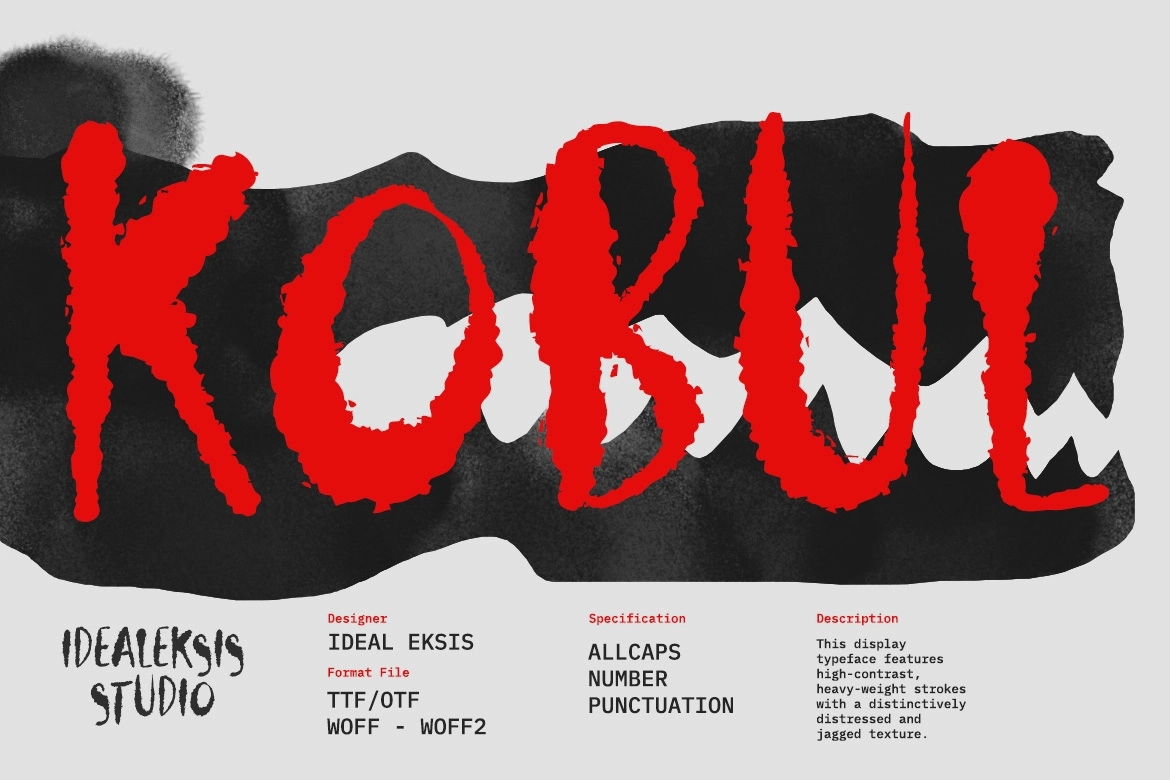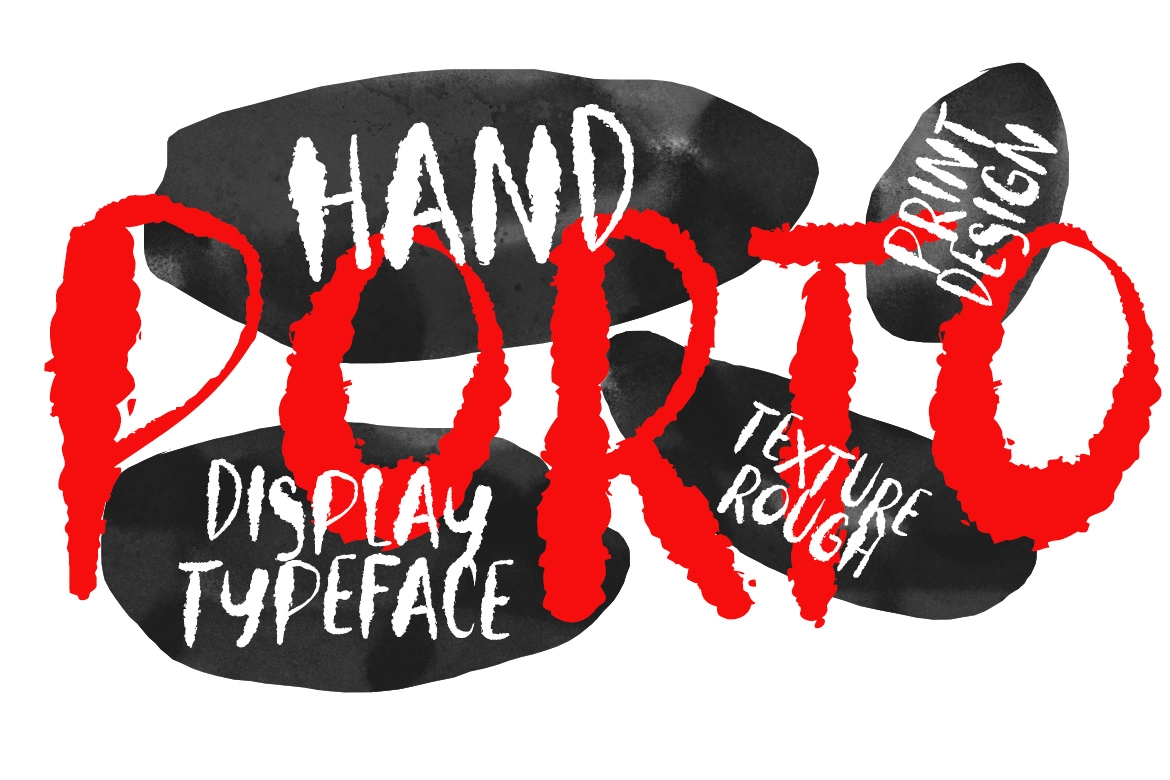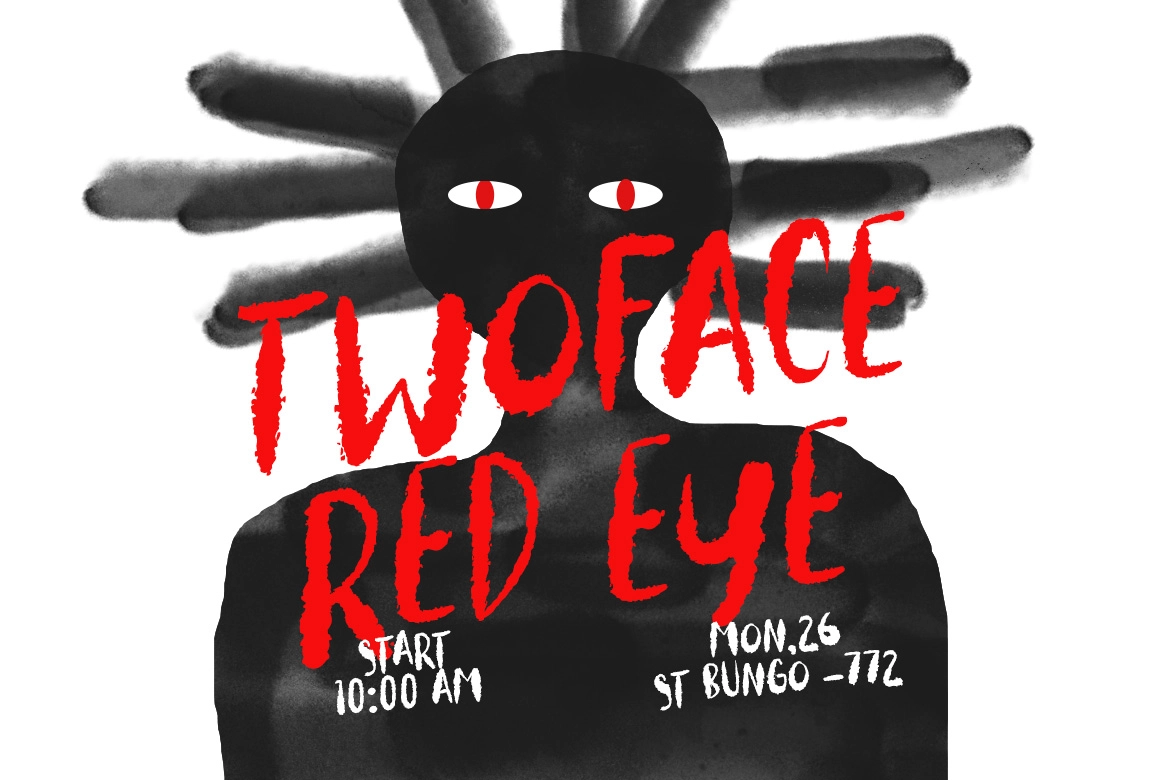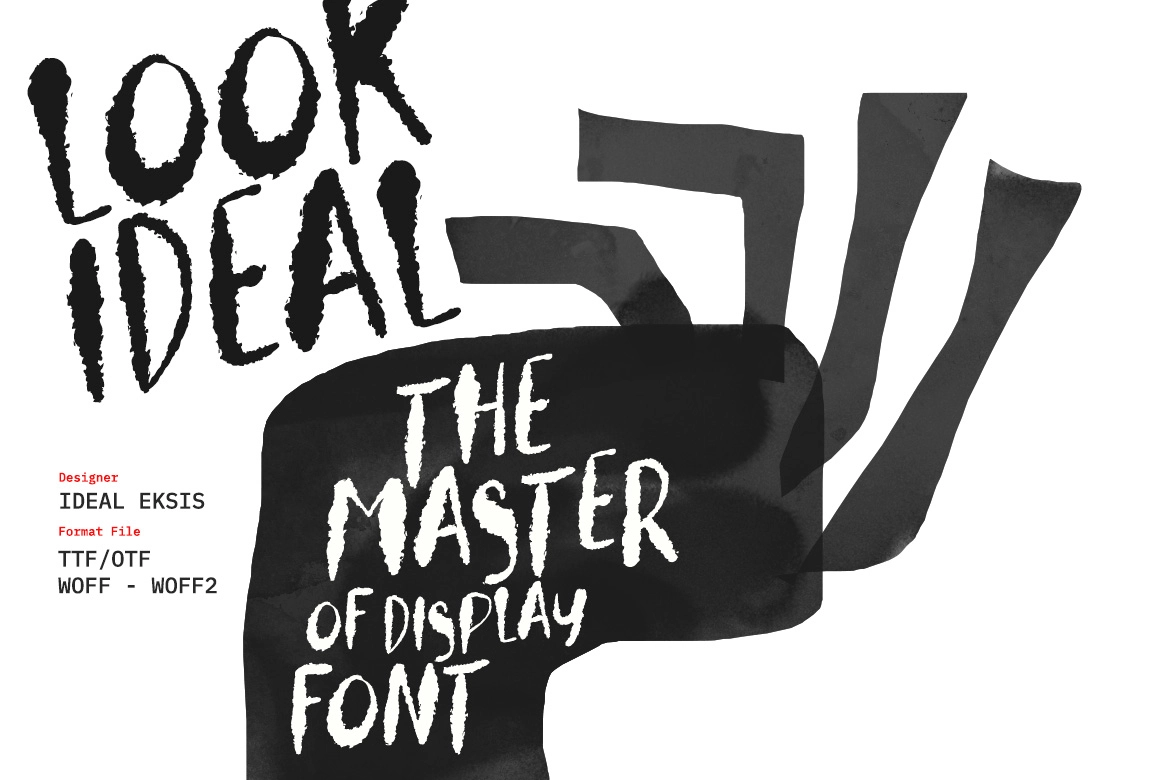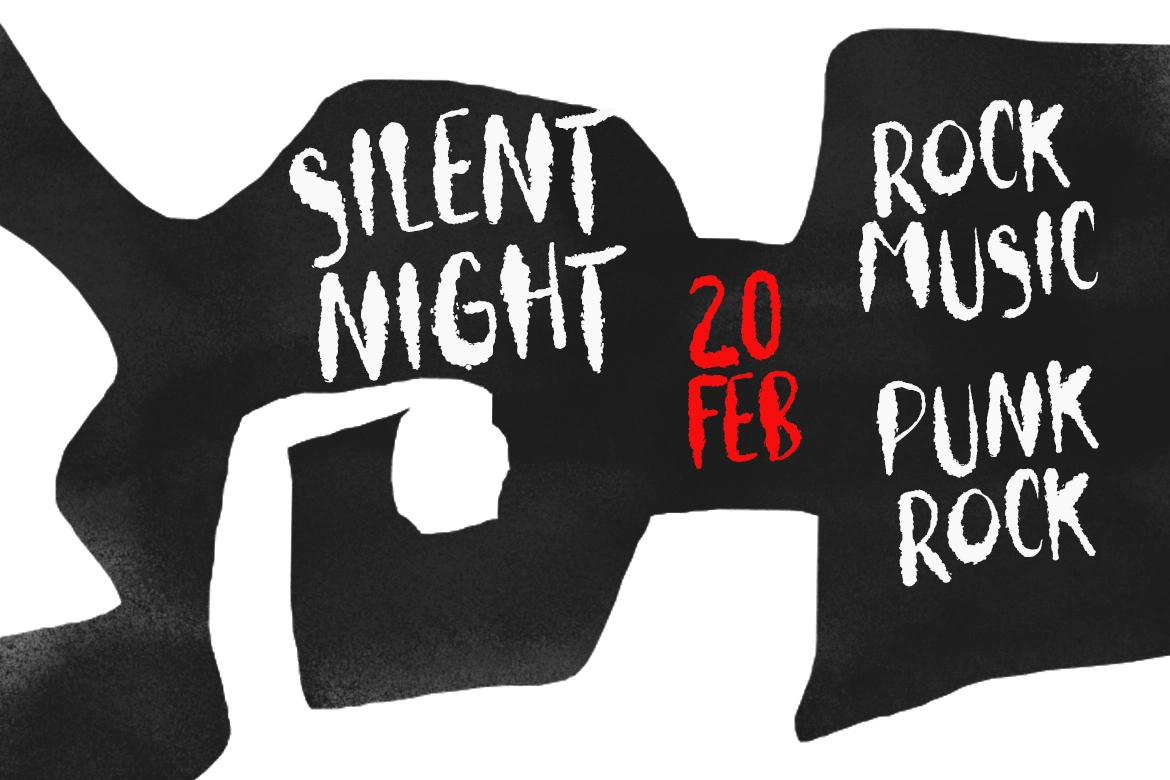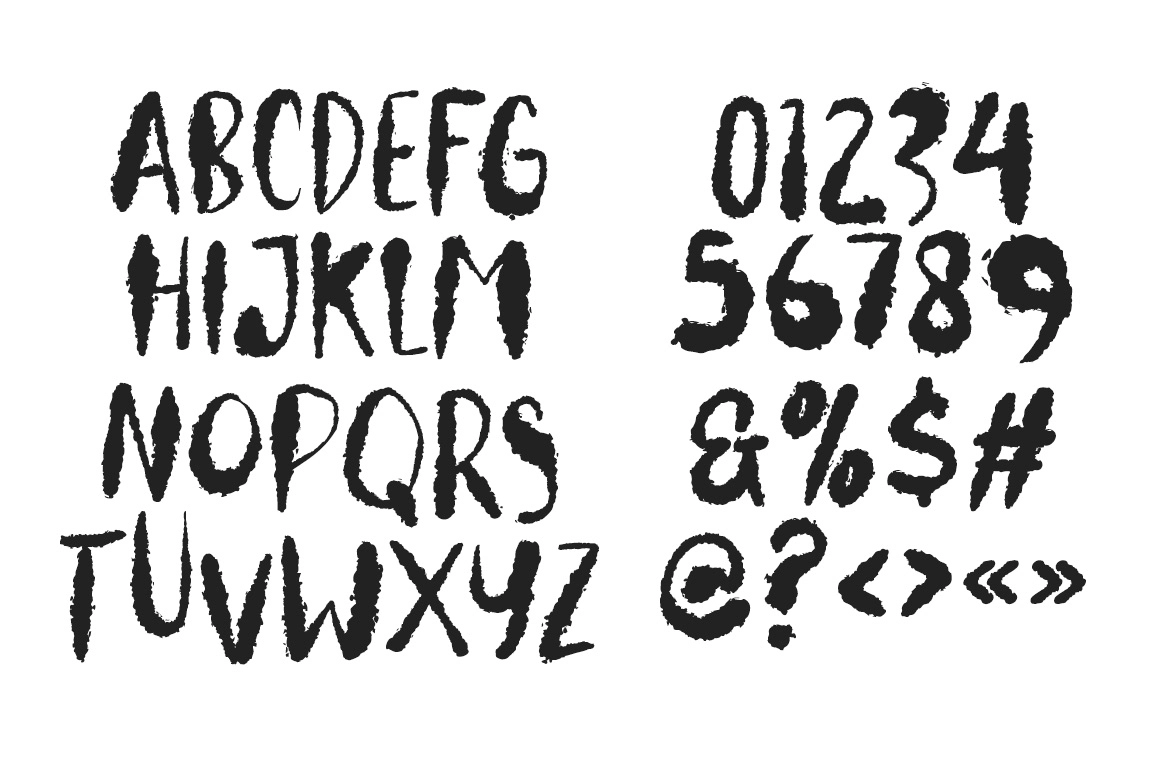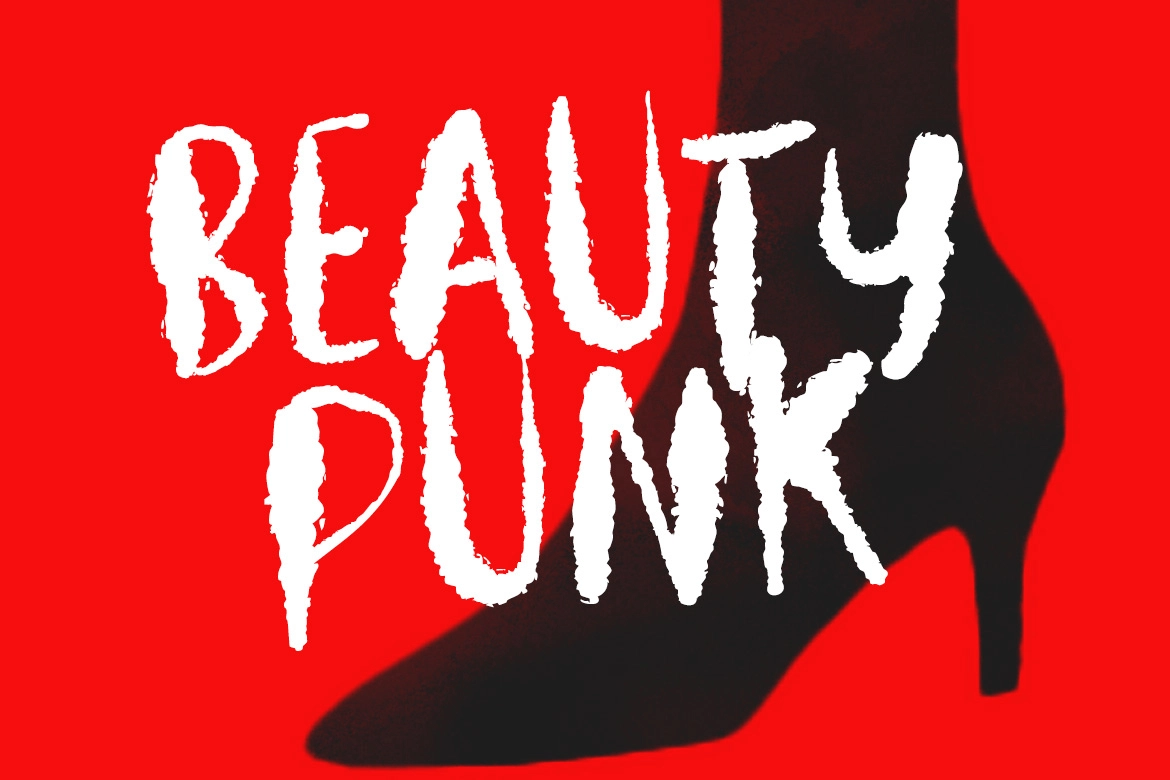
Kobul - Grunge Brush Display Font
Kobul
Kobul – Grunge Brush Display Font is a bold and chaotic typeface designed to capture raw energy and rebellious expression. Featuring rough brush strokes, jagged edges, and high-contrast forms, this grunge brush display font delivers an intense handcrafted look that instantly grabs attention.
The distressed texture and irregular letterforms create a sense of movement and unpredictability, making Kobul perfect for designs that need attitude and visual impact. Whether you're working on edgy branding or bold poster layouts, this font brings a gritty, underground aesthetic to your work.
- All Caps Uppercase
- Numerals & Punctuation